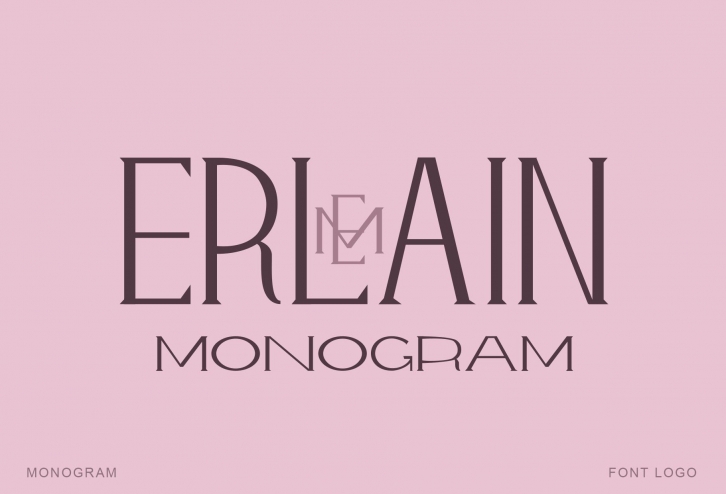
Erlain is a simple, authentic and tall serif font. This font is PUA encoded which means you can access all of the glyphs and swashes with ease!Â
Fall in love with its incredibly versatile style and use it to create spectacular designs!